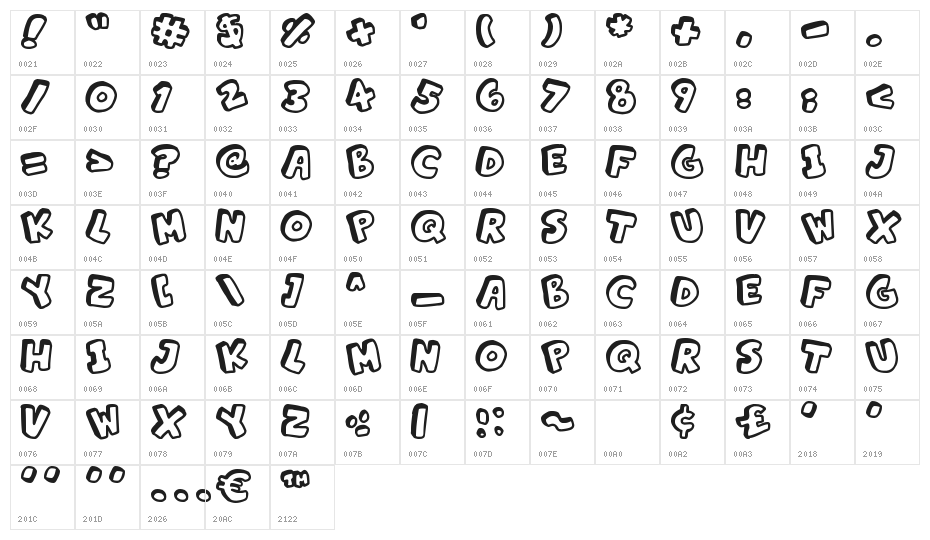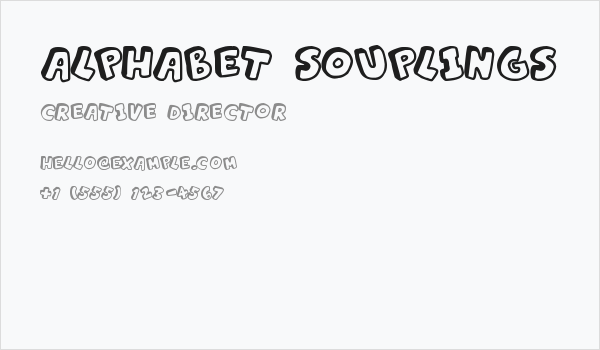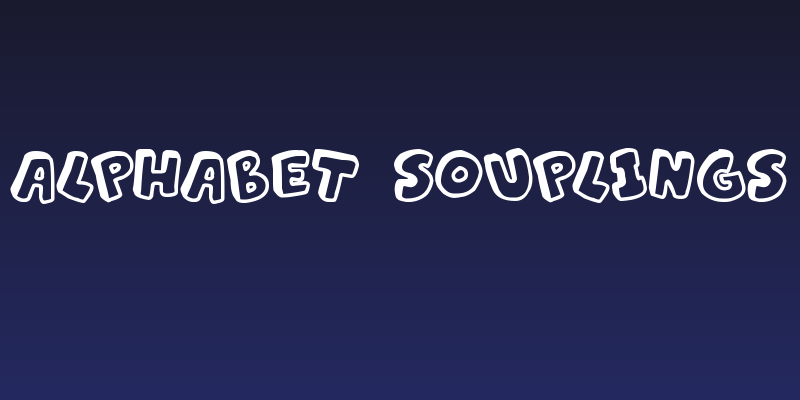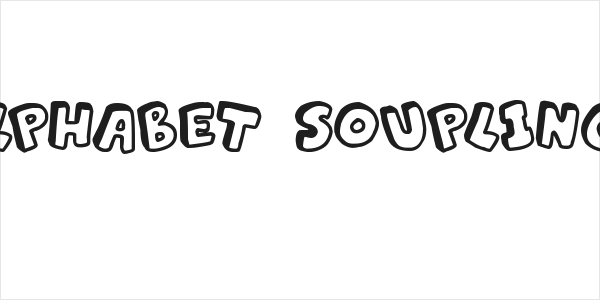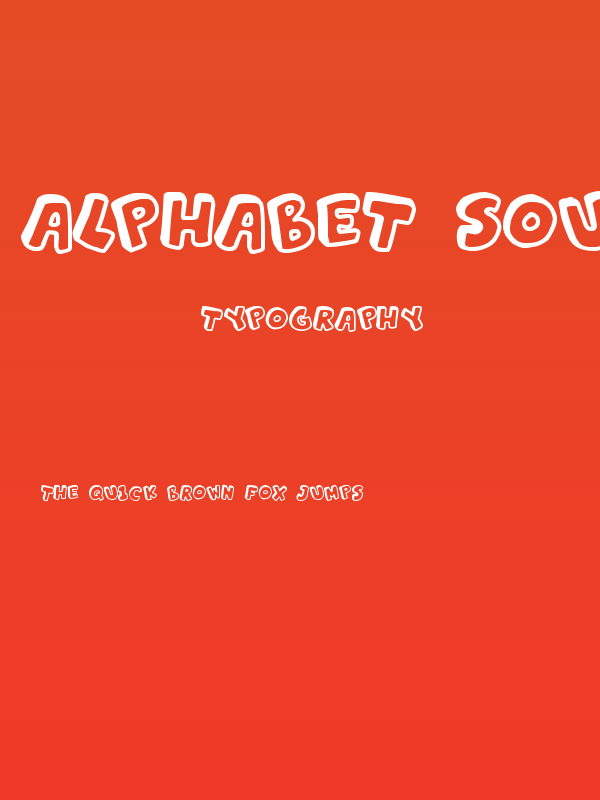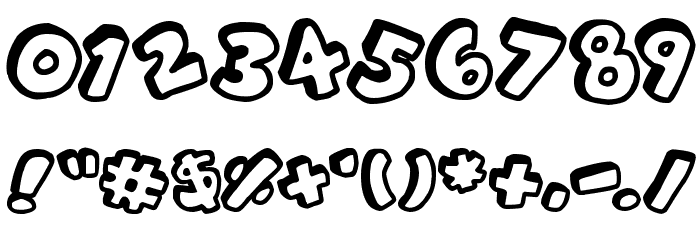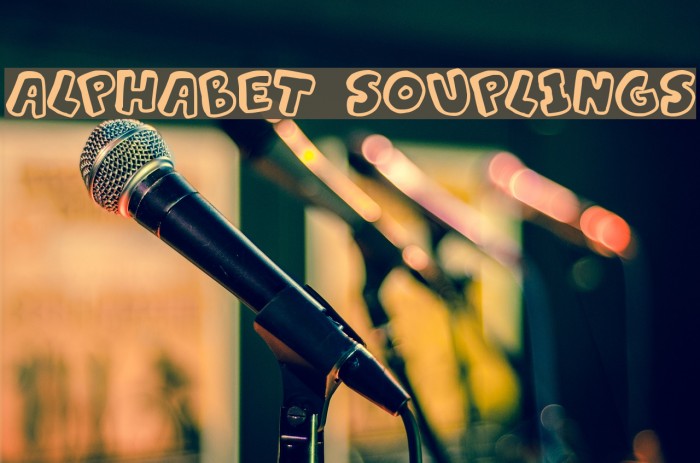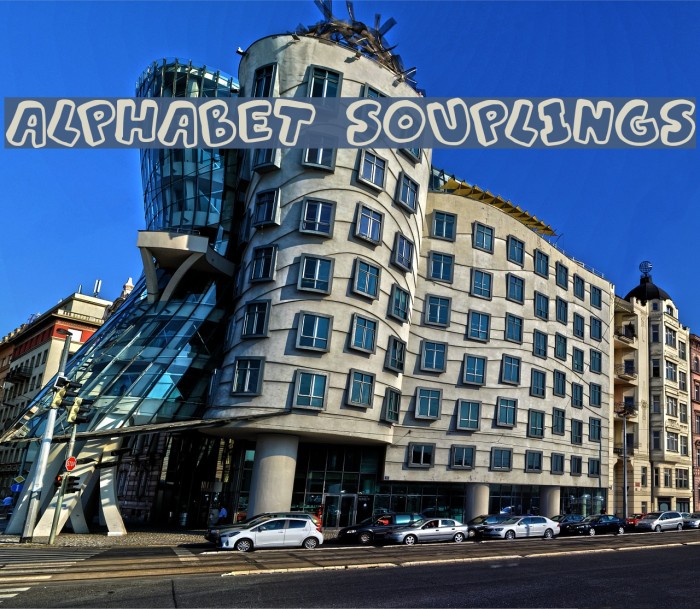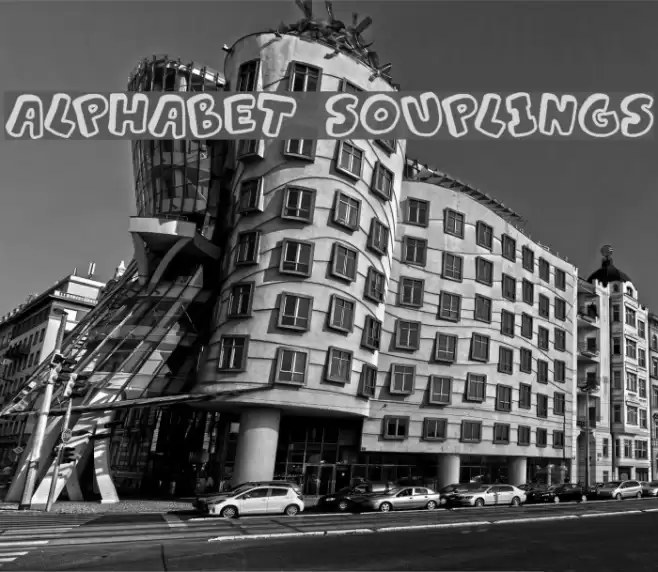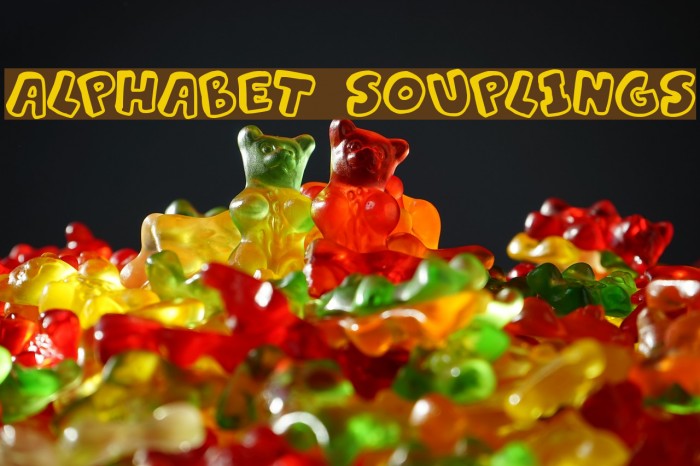
Alphabet Souplings Font
Alphabet Souplings Description
This playful and bold font features a cartoonish, hand-drawn style with thick outlines that give it a lively and energetic appearance. The characters are rounded and slightly irregular, adding to the whimsical feel. The font is highly legible and eye-catching, making it suitable for creative projects that require a fun and informal touch. The uppercase and lowercase letters maintain a consistent style, while the numbers and special characters complement the overall design. This font is ideal for children's books, comic strips, or any project that aims to convey a sense of joy and playfulness.
| Overall Style | Playful, Cartoonish, Fun |
| Proposed Projects | Children's books, comic strips, playful branding, party invitations. |